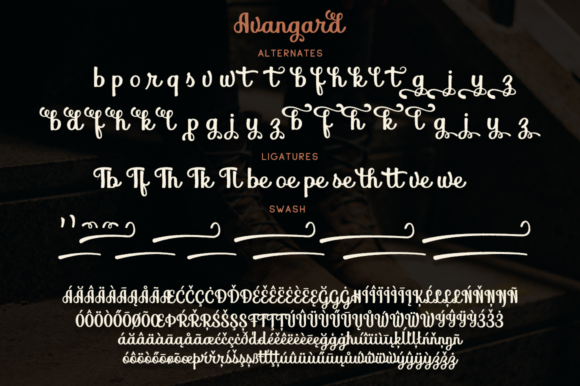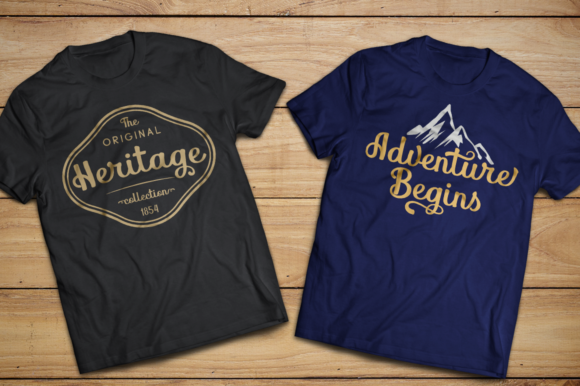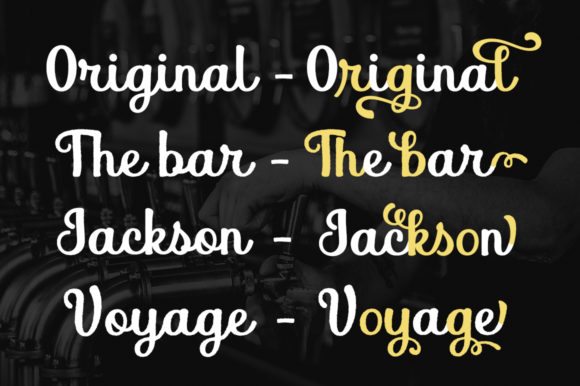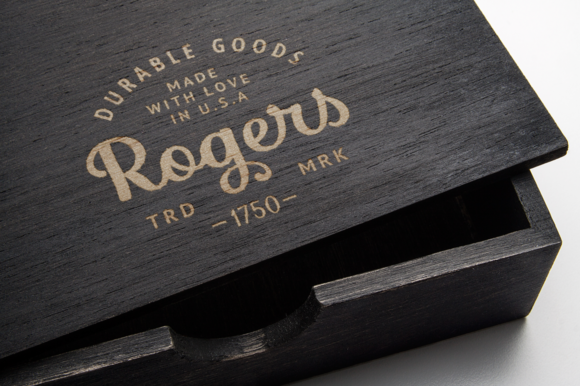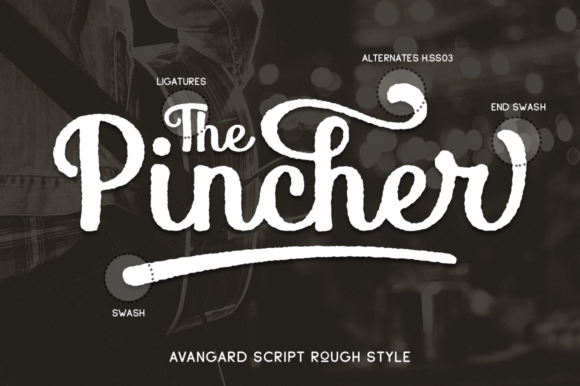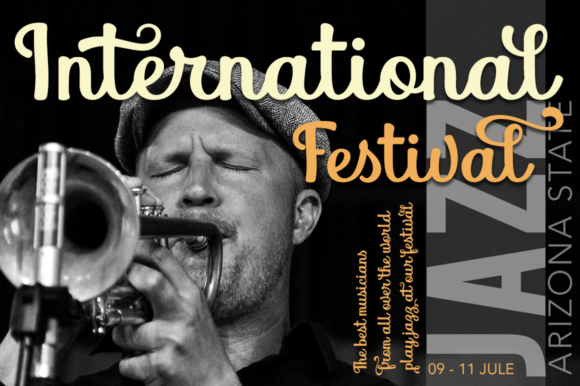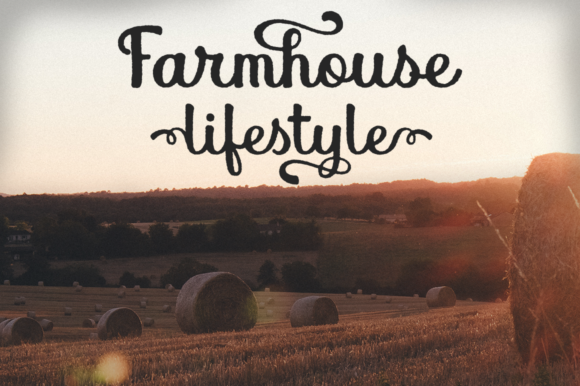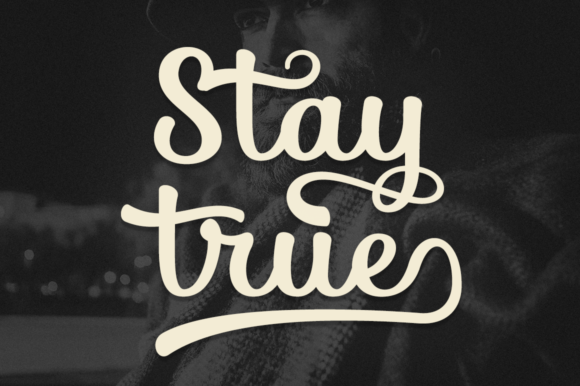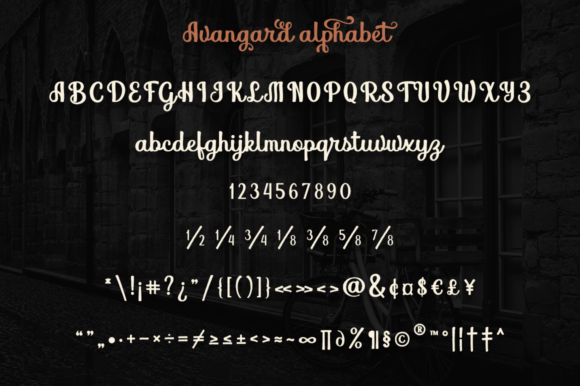
Avangard Font
About Avangard Font
Avangard is a stunning vintage font with a personal feel. Get inspired by its retro feel, and turn any design project into a standout.